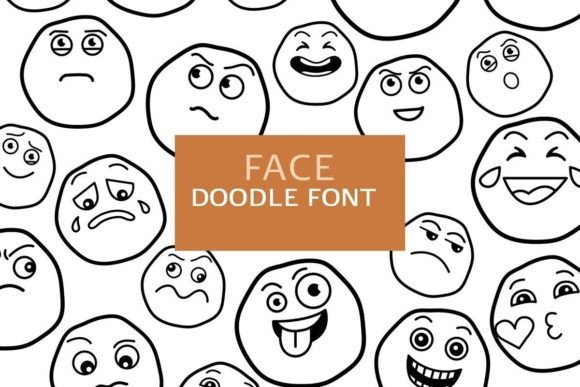
Introducing Face Doodle Font: The Ultimate Dingbat Font for Creative Projects
Are you looking for a fun and versatile font to add a personal touch to your craft projects, designs, planners, diaries, activity books, or any other creative endeavor? Look no further than Face Doodle Font, a delightful dingbat font that’s sure to bring a smile to your face. In this article, we’ll explore the features and benefits of Face Doodle Font, and show you how to make the most of this amazing font in your creative projects.
What is Face Doodle Font?
Face Doodle Font is a unique and charming dingbat font that’s perfect for adding a touch of whimsy to your designs. As a dingbat font, Face Doodle Font features a collection of adorable faces, each with its own distinct personality. From happy and smiling to sad and surprised, these faces are sure to add a dash of fun and humor to any project.
The Versatility of Face Doodle Font
One of the best things about Face Doodle Font is its incredible versatility. Whether you’re working on a craft project, designing a planner or diary, or creating an activity book, Face Doodle Font is the perfect choice. Its playful and approachable style makes it suitable for a wide range of applications, from kids’ projects to adult-oriented designs.
Here are just a few ideas for using Face Doodle Font:
- Craft projects: Use Face Doodle Font to add a personal touch to your scrapbooking, card making, or other paper crafting projects.
- Planners and diaries: Add some fun and personality to your planners and diaries with Face Doodle Font.
- Activity books: Face Doodle Font is perfect for activity books, such as coloring books, puzzle books, or workbooks.
- Designs: Use Face Doodle Font to add a touch of whimsy to your graphic designs, such as posters, flyers, or social media graphics.
Key Features of Face Doodle Font
So what makes Face Doodle Font so special? Here are some of its key features:
- Unique and adorable faces: Face Doodle Font features a collection of cute and expressive faces that are sure to delight.
- High-quality design: Face Doodle Font is designed with high-quality vector graphics, ensuring that it looks great at any size.
Tips for Using Face Doodle Font
Here are some tips for getting the most out of Face Doodle Font:
- Experiment with different sizes and colors: Face Doodle Font looks great at a variety of sizes and colors, so don’t be afraid to experiment.
- Combine with other fonts: Face Doodle Font pairs well with other fonts, so try combining it with your favorite font for a unique look.
- Use it sparingly: Face Doodle Font is a bold and playful font, so use it sparingly to add a touch of whimsy to your designs.
- Have fun: Most importantly, have fun with Face Doodle Font! Its playful and creative nature makes it the perfect font for designers who want to add a little personality to their work.
Face Doodle Font is a fun and versatile dingbat font that’s perfect for adding a touch of whimsy to your creative projects. Its unique and adorable faces, high-quality design, and ease of use make it a great choice for designers of all levels. Whether you’re working on a craft project, designing a planner or diary, or creating an activity book, Face Doodle Font is sure to bring a smile to your face. So why not give it a try and see what amazing creations you can come up with?
Here are some frequently asked questions about Face Doodle Font:
- What is Face Doodle Font?
- Face Doodle Font is a fun and cute dingbat font featuring a collection of adorable faces.
- What can I use Face Doodle Font for?
- Face Doodle Font is perfect for a wide range of creative projects, including craft projects, designs, planners, diaries, activity books, and more.